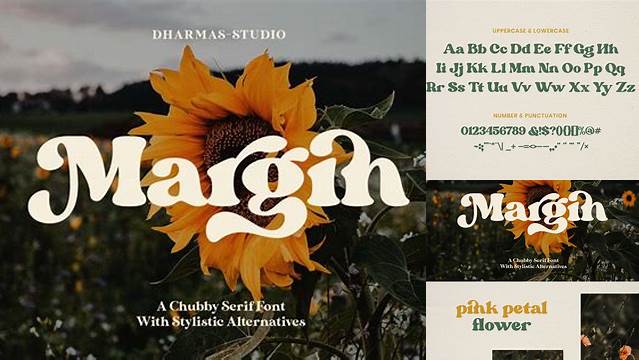
Free Margin Retro Serif Font Download
What is Margin Retro Serif Font?
Okay, guys, let's dive into the world of margin retro serif fonts. What exactly are they? Well, imagine a font that blends the classic elegance of serif typefaces with a touch of vintage charm. These fonts often feature distinctive serifs, those little feet or strokes at the ends of letters, giving them a sophisticated yet nostalgic feel. The term 'margin' in this context usually refers to the design's intent to work well within the margins of a page or screen, ensuring readability and aesthetic appeal. Think of old books, vintage posters, and classic advertisements – that’s the vibe we’re talking about! The beauty of a margin retro serif font lies in its versatility. It can be used for a variety of projects, from branding and logo design to editorial layouts and web design. The 'retro' aspect adds a unique twist, making your designs stand out while maintaining a sense of timelessness. When you're looking for that perfect font that screams sophistication with a hint of yesteryear, a margin retro serif font might just be your answer.
Why Choose a Retro Serif Font?
So, why should you even bother with a retro serif font? There are tons of modern fonts out there, right? Well, the charm of a retro serif font is in its ability to evoke a sense of nostalgia and authenticity. It adds character and warmth to your designs that many modern fonts simply can't replicate. Imagine you're designing a logo for a coffee shop that prides itself on using traditional brewing methods. A sleek, sans-serif font might look too sterile, but a retro serif? Perfect! It tells a story, it connects with the past, and it gives your brand a unique identity. Beyond aesthetics, retro serif fonts often have excellent readability, making them a great choice for body text as well as headlines. They're designed to be easy on the eyes, even at smaller sizes. Plus, let's be real, they just look cool! In a world saturated with digital-everything, using a retro serif font can help your project stand out from the crowd, making it memorable and engaging. So next time you're starting a new design, give a retro serif a try – you might be surprised at how much character it can bring to your work. Retro fonts have a distinct personality that can make your work unique.
Benefits of Using Margin Fonts
Using margin fonts, particularly in designs where readability and space are critical, offers several distinct advantages. Primarily, margin fonts are crafted to ensure that text fits neatly within the boundaries of a page or screen. This careful design prevents text from crowding or appearing haphazard, which can greatly improve the overall visual appeal and professionalism of a project. Imagine you're working on a book layout; a well-designed margin font will ensure that each page looks balanced and easy to read, without the distraction of text bleeding into the edges. Furthermore, margin fonts often come with optimized kerning and spacing, which enhances readability and reduces eye strain. This is especially important for lengthy texts, such as articles or reports, where maintaining reader engagement is paramount. Beyond readability, margin fonts contribute to a cleaner, more organized aesthetic. They create a sense of structure and order, which can be particularly beneficial for designs that need to convey a sense of authority or trustworthiness. Whether you’re designing a website, a brochure, or a book, incorporating a margin font can significantly elevate the final product by ensuring a polished and professional appearance. The right font choice will help make sure your message is presented clearly.
Using Retro Fonts in Web Design
Using retro fonts in web design can add a unique touch that sets your site apart from the modern, minimalist trends. When implemented correctly, a retro serif font can evoke a sense of nostalgia, trust, and quality. Think about using a retro font for headings to grab attention, while keeping the body text in a more readable, modern sans-serif to ensure clarity. This contrast can create a visually appealing and functional design. However, it’s crucial to consider readability when using retro fonts online. Some fonts might look beautiful but become difficult to read on screens, especially at smaller sizes. Always test your font choices on various devices and screen resolutions to ensure they remain legible. Another tip is to pair your retro font with a complementary color palette and imagery. Think vintage photographs, muted tones, and classic design elements to enhance the overall retro aesthetic. Just be careful not to overdo it – too much retro can make your site look dated rather than stylish. Finally, remember to optimize your fonts for web use. Use web font formats like WOFF and WOFF2 to ensure fast loading times and compatibility across different browsers. By following these tips, you can successfully incorporate retro fonts into your web design, creating a memorable and engaging user experience.
Pairing Retro Fonts with Modern Design Elements
Mixing retro fonts with modern design elements is a fantastic way to create a balanced and visually interesting aesthetic. The key is to strike the right balance between the old and the new, ensuring that the retro font enhances rather than overwhelms the overall design. One approach is to use a retro serif for headings and titles while opting for a clean, modern sans-serif for body text. This contrast creates a visual hierarchy that is both stylish and readable. Another technique involves using a modern layout with plenty of white space to offset the busyness of a retro font. The simplicity of the layout allows the font to stand out without feeling cluttered. Color palettes also play a crucial role. Pairing a retro font with modern, muted colors or even bold, contemporary hues can create a striking visual impact. Think of using a vintage-inspired font with a neon color scheme for a fun, unexpected twist. Furthermore, consider incorporating modern graphics and illustrations alongside your retro font. Clean lines, geometric shapes, and minimalist icons can provide a counterpoint to the ornate details of a retro serif font, resulting in a design that feels both timeless and fresh. By carefully combining these elements, you can achieve a harmonious blend of retro charm and modern sophistication.
The History of Serif Fonts
To truly appreciate retro serif fonts, it's helpful to understand their history. Serif fonts have been around for centuries, dating back to the Roman Empire. The serifs themselves are thought to have originated from the way Roman stonemasons finished the ends of letters when carving inscriptions. These small details not only added a decorative touch but also helped to improve readability by creating a horizontal line that guided the eye along the text. Over time, serif fonts evolved and diversified, with different styles emerging during the Renaissance, the Industrial Revolution, and the modern era. Each period brought its own unique interpretation of the serif, resulting in a rich and varied typographic landscape. For instance, fonts like Times New Roman, created in the early 20th century, became a staple of print media due to their excellent readability and space-saving design. The retro serif fonts we see today often draw inspiration from these historical styles, incorporating elements of classic typefaces while adding their own contemporary twist. Understanding this history can help you make more informed decisions when choosing a font, allowing you to select a serif font that not only looks great but also carries a sense of tradition and heritage. Serif fonts are a class of fonts that have been used for a very long time.
Popular Retro Serif Fonts
Let's talk about some popular retro serif fonts that you might want to check out for your next project. One standout is Playfair Display, a transitional serif that exudes elegance and sophistication. Its high contrast and delicate serifs make it perfect for headlines and titles, giving your designs a touch of classic glamour. Another great option is Lora, a well-balanced serif with roots in calligraphy. Lora's slightly brushed feel adds warmth and character, making it a great choice for body text as well as headings. If you're looking for something with a bit more personality, consider Arvo. This slab-serif font has a geometric feel and a strong presence, making it ideal for branding and logo design. For a truly vintage vibe, check out Abril Fatface. This bold display serif is inspired by the heavy typefaces used in 19th-century advertising, and its striking appearance is sure to grab attention. These are just a few examples, of course – there are countless other retro serif fonts out there waiting to be discovered. So, explore different options, experiment with pairings, and find the perfect font to bring your design vision to life!
Finding Inspiration for Font Pairings
Finding inspiration for font pairings can be a fun and rewarding process. There are countless resources available to help you discover new and creative font combinations. Online font pairing tools can help you explore different font combinations and see how they look together. Websites like FontPair and Typ.io offer a variety of font pairing suggestions, based on different design styles and aesthetic preferences. Design galleries and websites can provide you with inspiration and examples of effective font pairings. Websites like Dribbble and Behance showcase the work of talented designers and typographers, and can help you to see how different fonts are used in real-world projects. Typography books and magazines can provide you with a deeper understanding of font design and usage. Look for books that cover the history of typography, the principles of design, and the technical aspects of font creation and usage. Experiment with different font combinations and see what works best for your design. The key is to experiment and find a font pairing that reflects your personal style and aesthetic preferences. So just experiment with inspiration, create new designs and develop your own style.